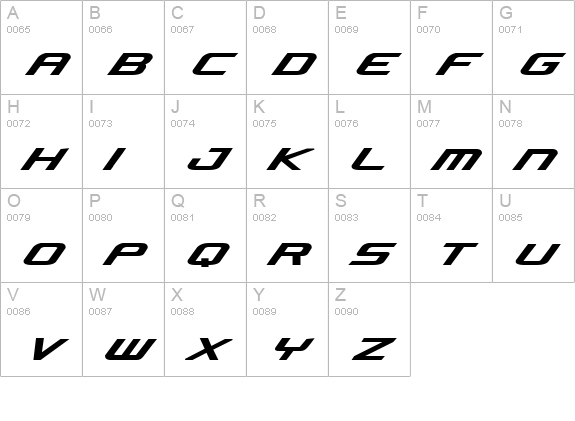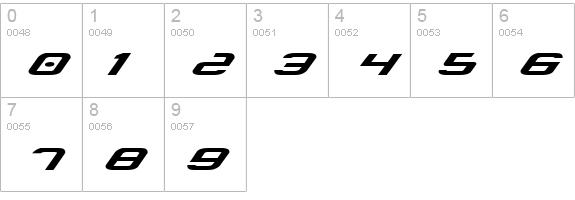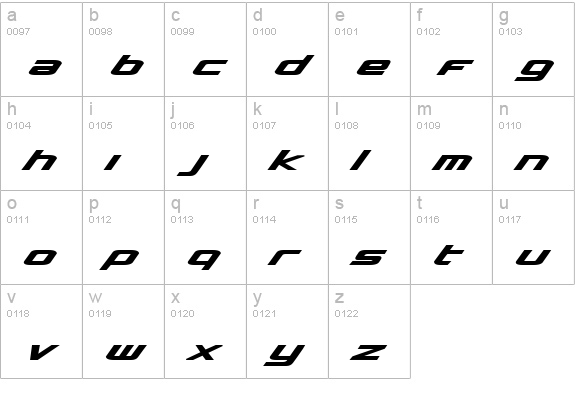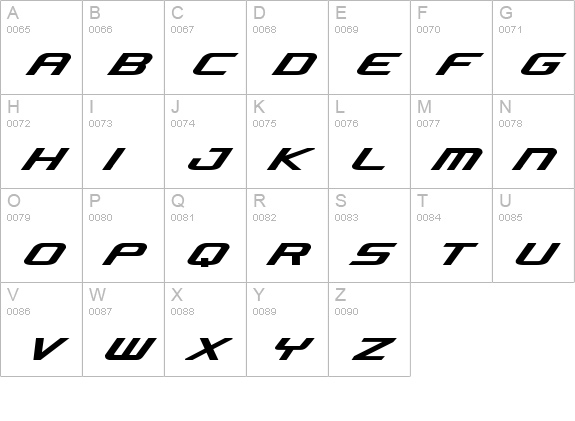
Concielian Bold is a strong, high-contrast variant in the Concielian typeface family \xE2\x80\x94 well suited to headlines, attention-grabbing titles, and strong calls-to-action.
Concielian Bold font is a sleek and modern typeface that exudes confidence and sophistication. Its bold and eye-catching design makes it perfect for headlines, titles, and branding materials. The clean lines and sharp edges of Concielian Bold give it a professional and polished look, making it a versatile choice for a wide range of design projects. One of the best features of Concielian Bold font is that it is available for free download at FontsMarket.com. This means that you can easily access this stylish font without any cost, making it a valuable addition to your font library. Whether you're working on a poster, website, or any other design project, Concielian Bold font will help you make a strong and memorable impression. Download it today and elevate your designs with this elegant and impactful typeface.